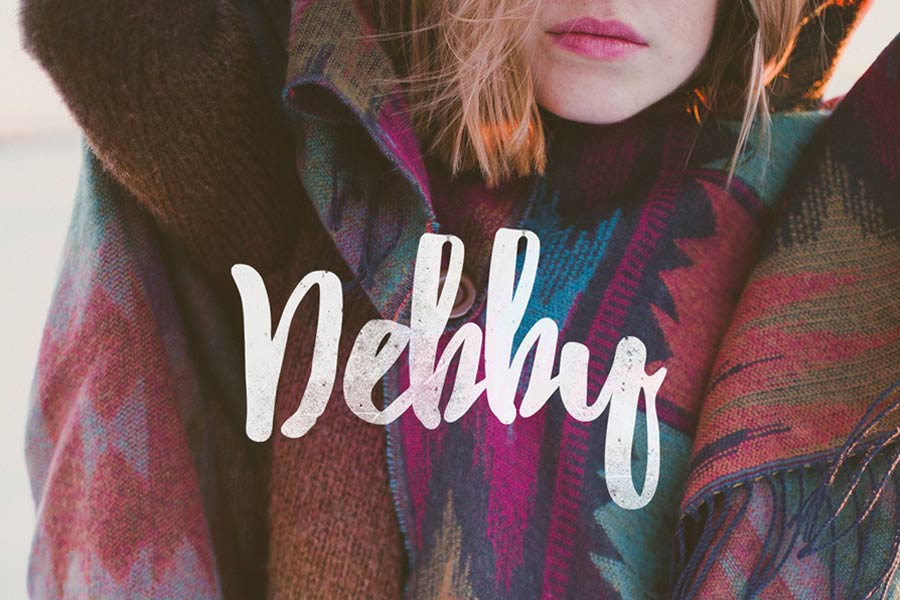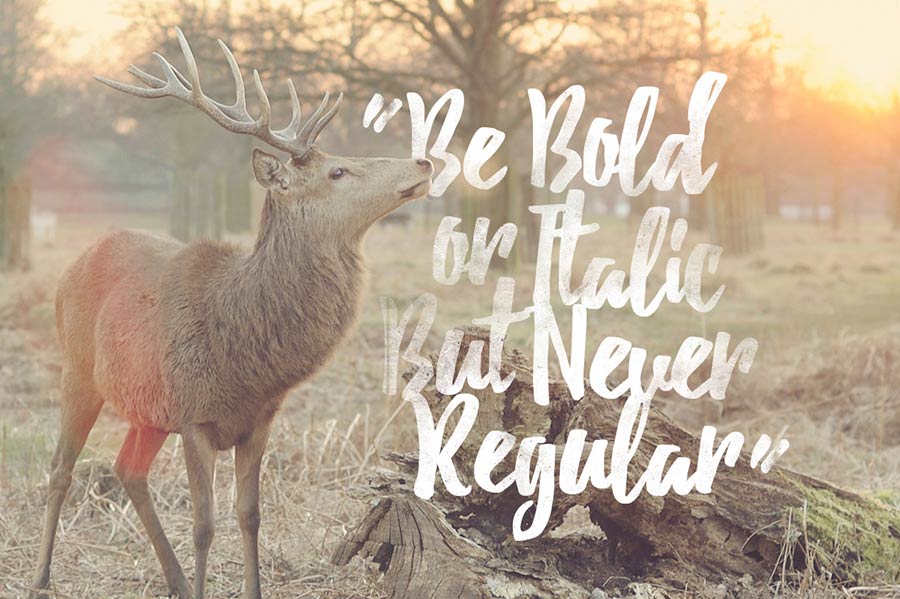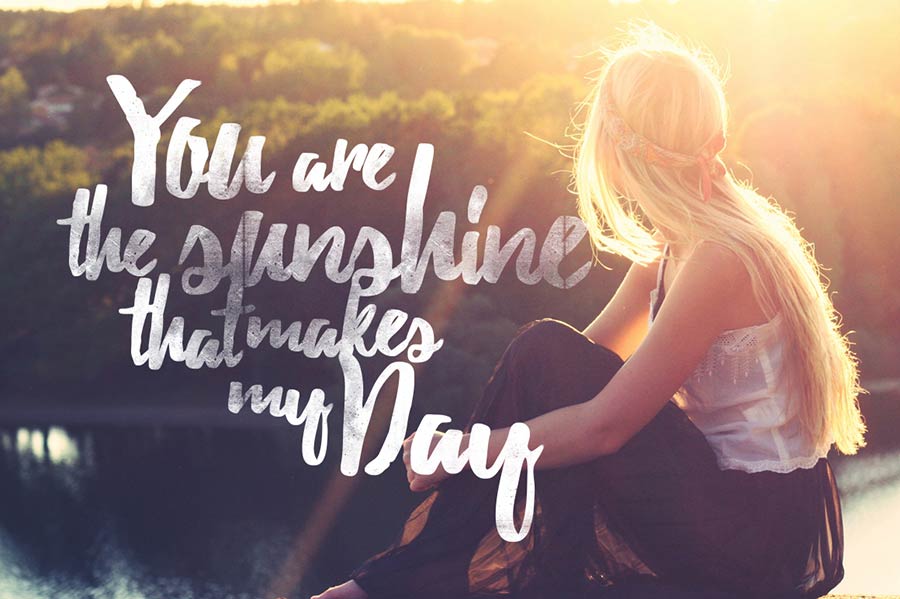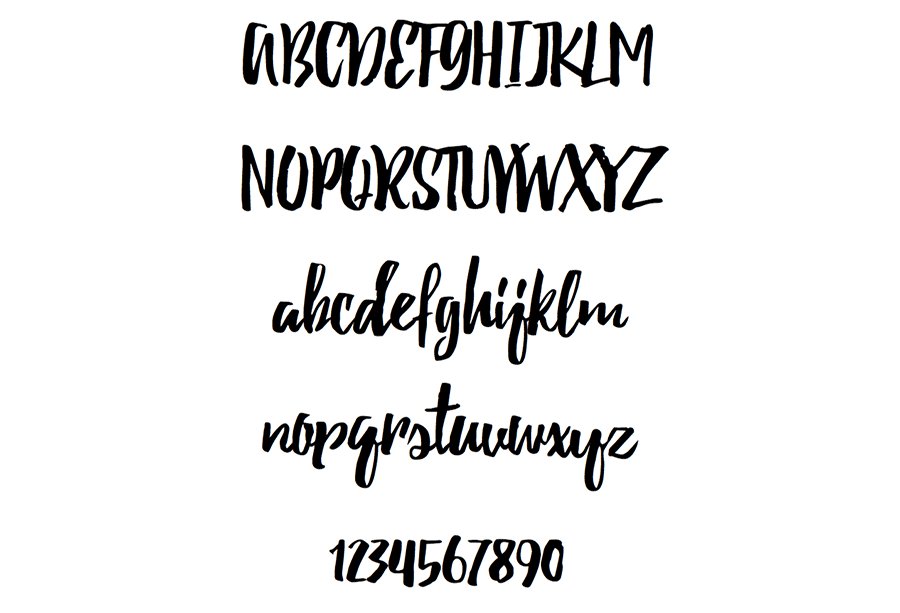
Debby is beautifully designed hand-drawn brush typeface that will make your designs feel more natural. Its irregular, free will style of handwriting will be perfect for many design occasions especially for lifestyle, fashion and wedding designs. I bet it will definitely well suited for invitation card designs.
Characters preview